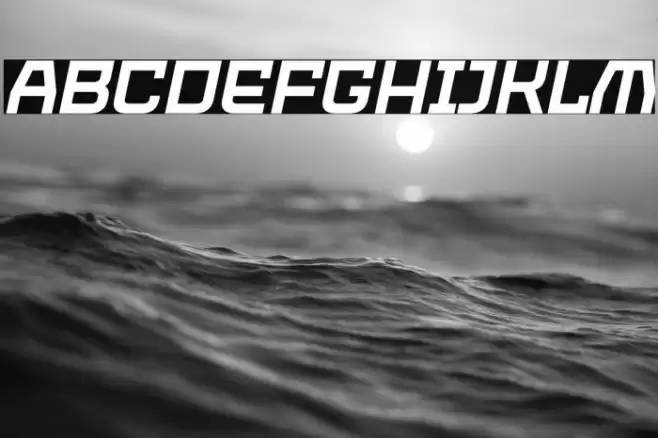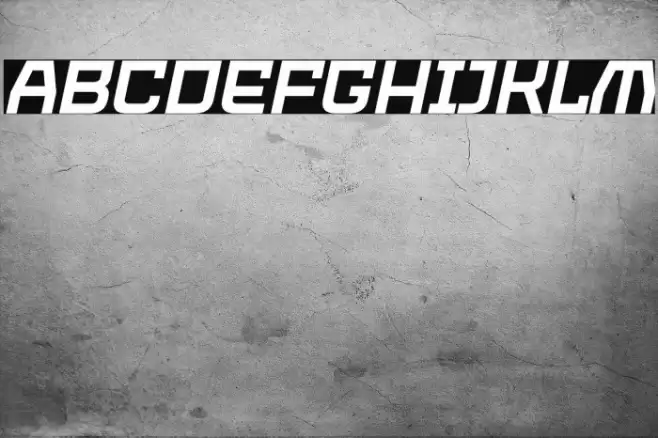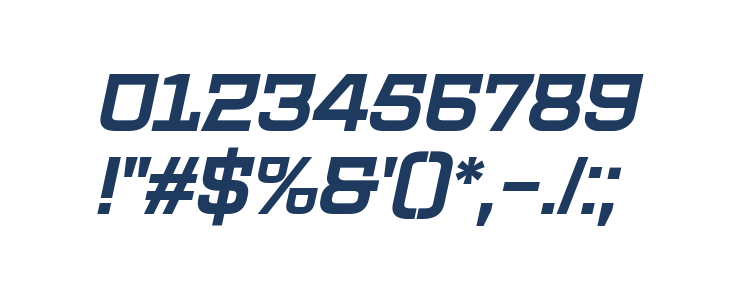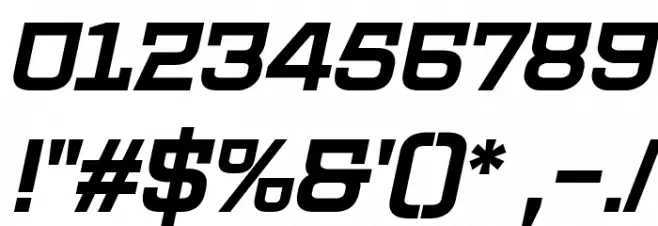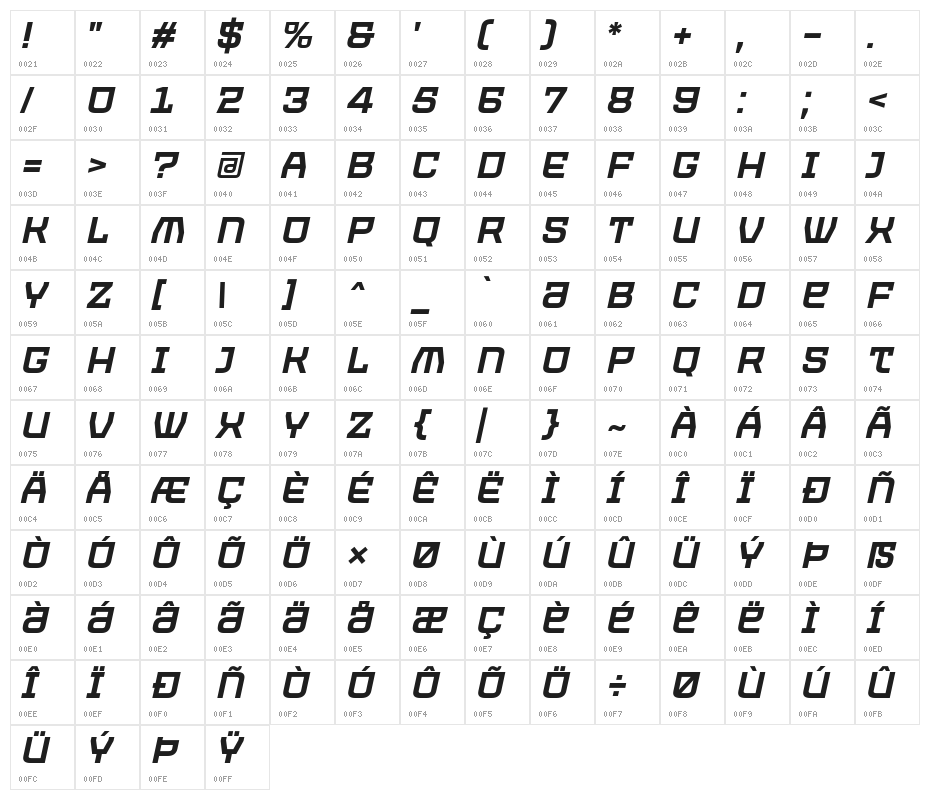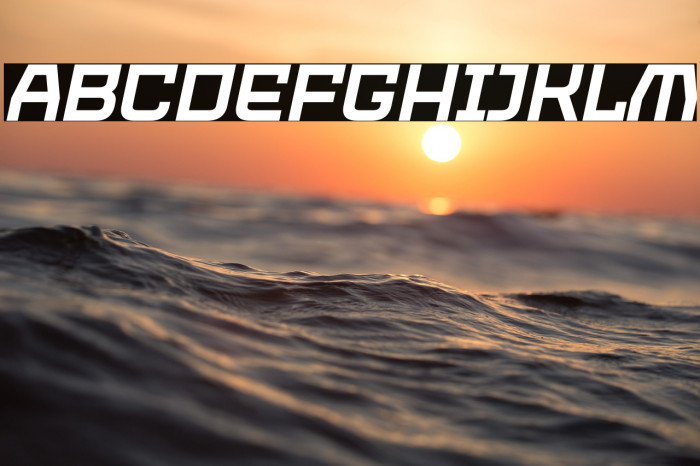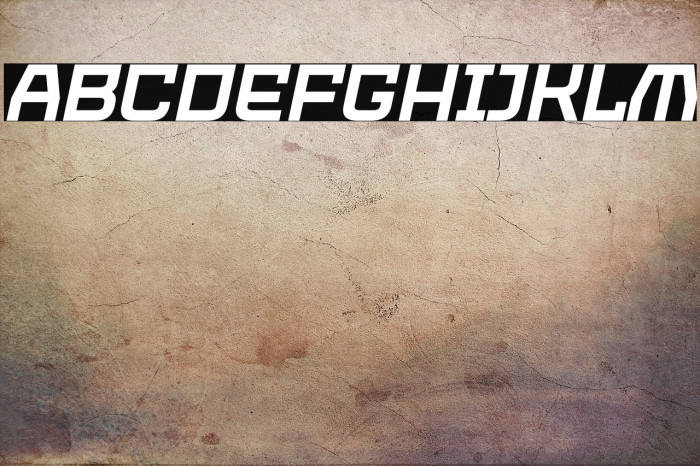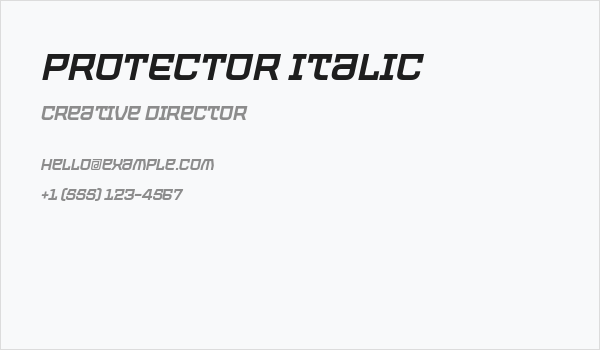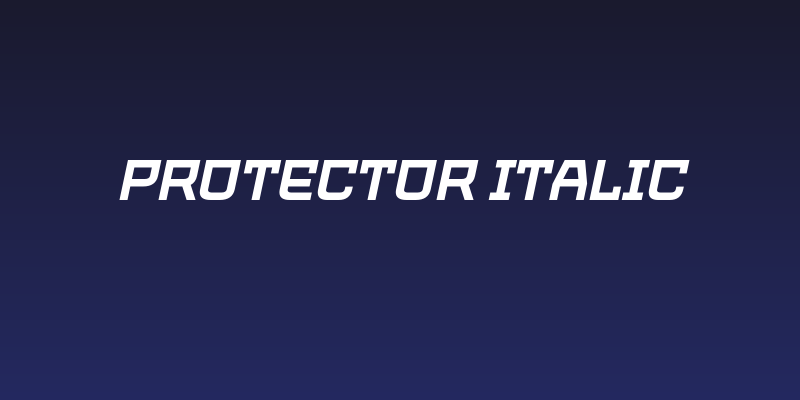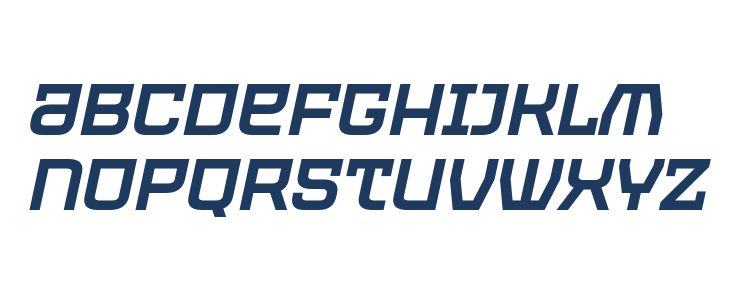
PROTECTOR Italic Font
PROTECTOR Italic Description
This font features a bold and dynamic italic style, characterized by its strong geometric shapes and angular lines. The uppercase and lowercase letters maintain a consistent slant, giving the typeface a sense of motion and energy. The numerals and special characters are designed to complement the letters, with a uniform thickness that enhances readability. The overall design is modern and sleek, making it suitable for projects that require a contemporary and assertive look.
A bold, italic font with geometric shapes and a modern, dynamic style from Uncategorized fonts.